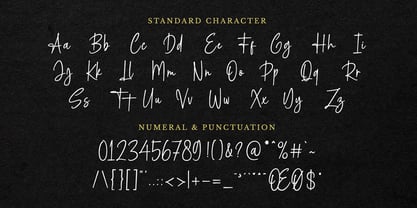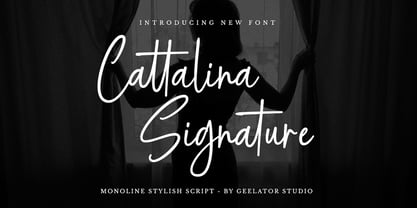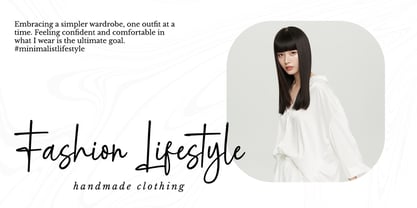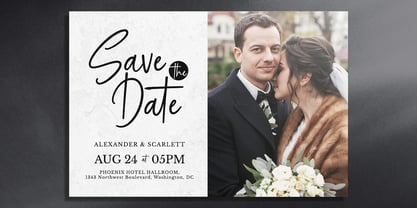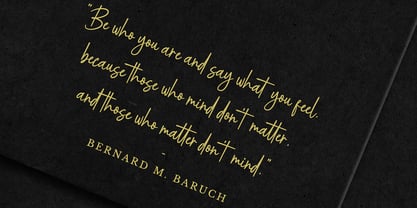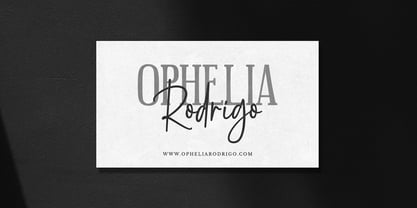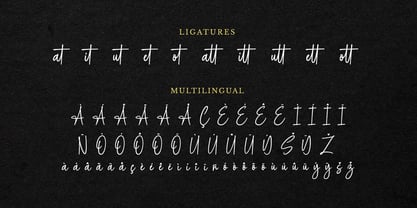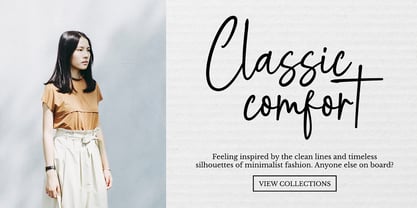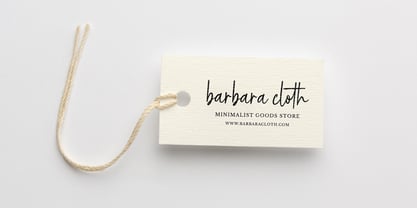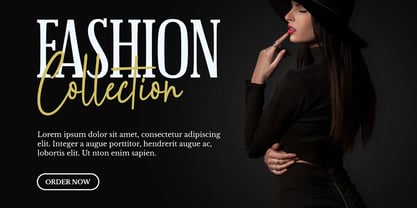
Cattalina Signature
by Geelator Studio
The Cattalina Signature Font Family was designed by Gilang Tito Dharmawan and published by Geelator Studio. Cattalina Signature contains 1 styles. More about this family
Elevate your brand and designs with the timeless elegance of Cattalina. This exquisite font embodies classic sophistication, making it the perfect choice for projects that require a touch of grace and refinement.
With its flowing lines and delicate curves, Cattalina brings a sense of authentic, handcrafted artistry to your work. It's a versatile font that can transform the simplest design into something truly special.
Designers: Gilang Tito Dharmawan
Foundry: Geelator Studio